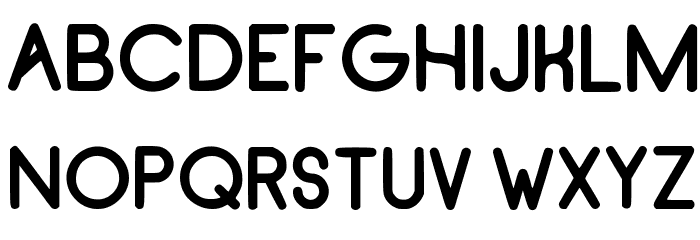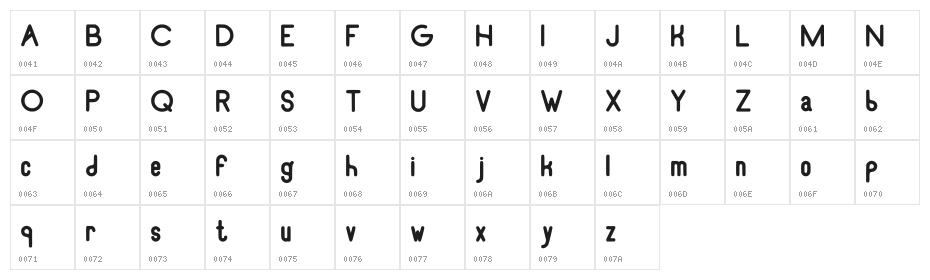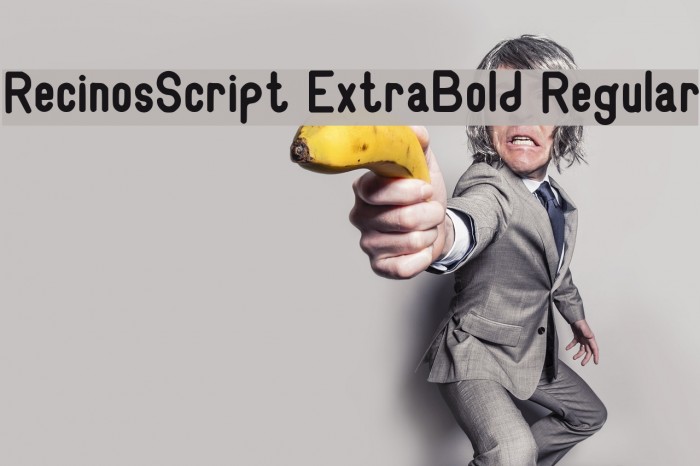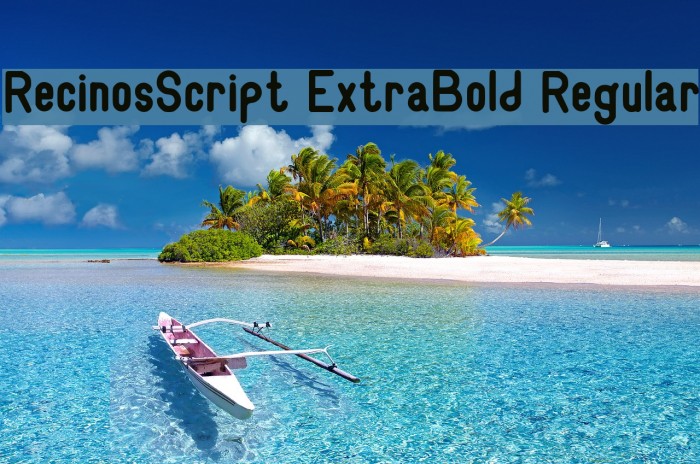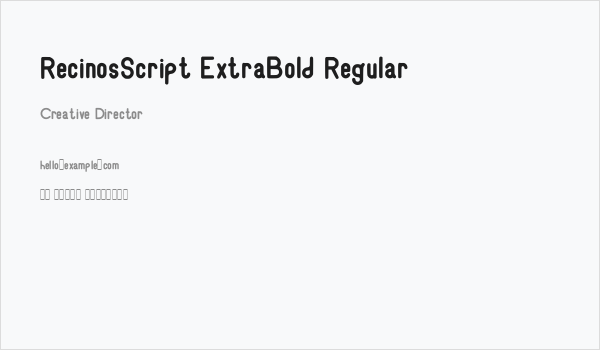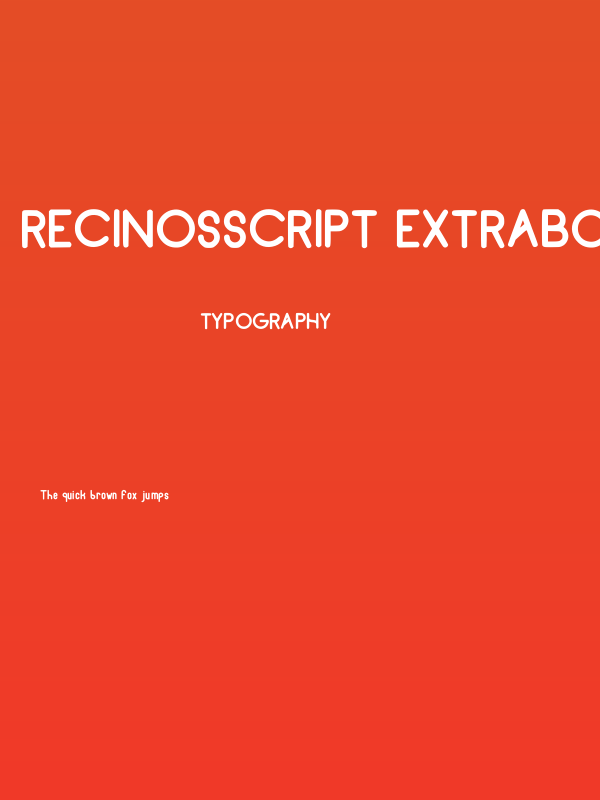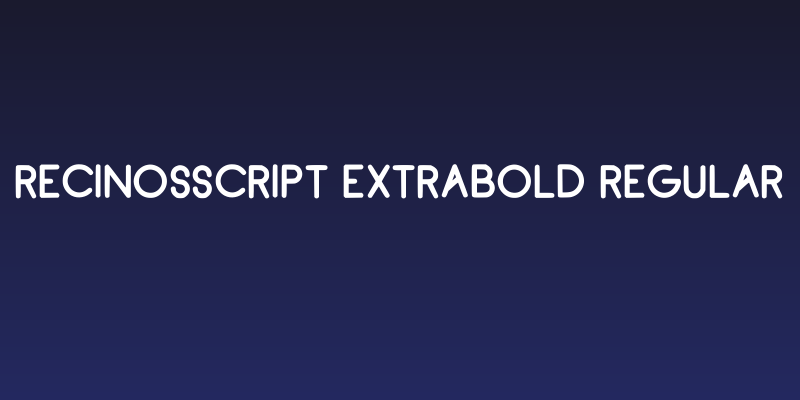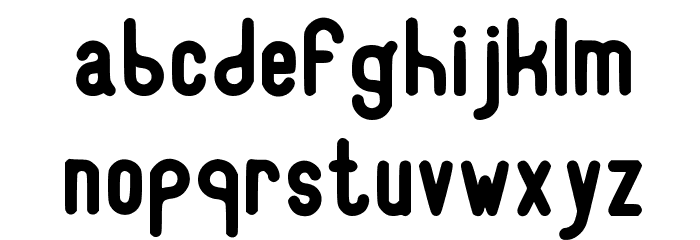
RecinosScript ExtraBold Regular Font
RecinosScript ExtraBold Regular Description
This font features a playful and rounded style, characterized by its bold and smooth curves. The letters are evenly spaced, providing a clean and approachable appearance. The uppercase and lowercase letters maintain a consistent weight, contributing to its cohesive look. The overall design is modern yet whimsical, making it suitable for a variety of creative projects. Its boldness ensures high readability, while the rounded edges add a touch of friendliness and warmth.
| Proposed Projects | Ideal for children's books, playful branding, posters, and social media graphics. |